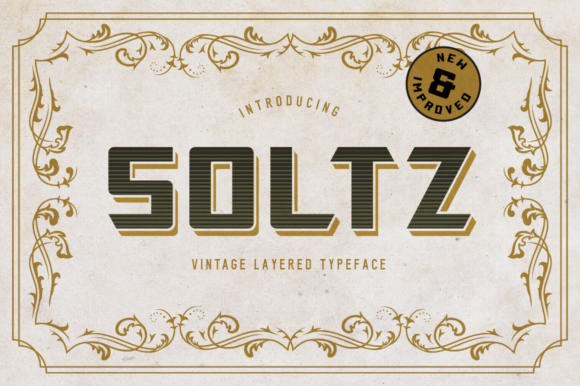
Introducing Soltz, the remarkable layered typeface inspired by vintage hand-painted sign advertisements that grace Atlantic City, NJ. With its captivating vintage aesthetics, Soltz bestows a timeless charm to your designs, taking you on a nostalgic journey with every use.
Unleash the power of Soltz's four distinct styles, meticulously crafted for seamless combination. Experiment with bold statements, playful accents, and intricate details, effortlessly creating captivating designs that resonate with your audience.
Soltz's versatility extends beyond aesthetics, seamlessly adapting to a myriad of projects, from eye-catching headlines to captivating social media posts. Its adaptability knows no bounds, effortlessly harmonizing with various design elements to produce cohesive and impactful designs.
Embrace the allure of Soltz, and watch as your designs come alive with character and nostalgia. Allow your imagination to flourish, knowing that Soltz has your back, ensuring that your creative expressions leave a lasting impression.